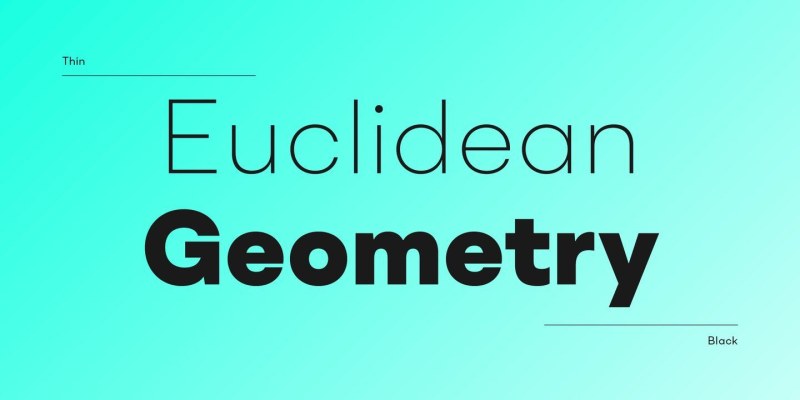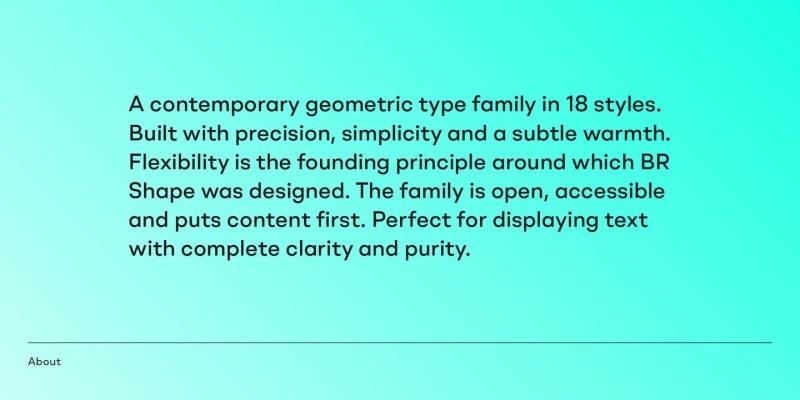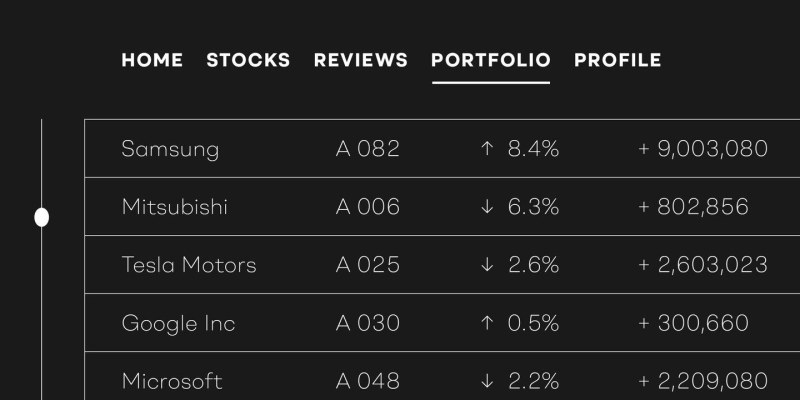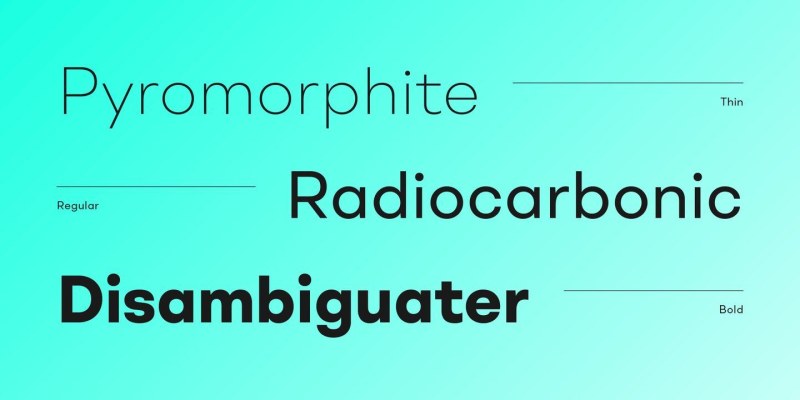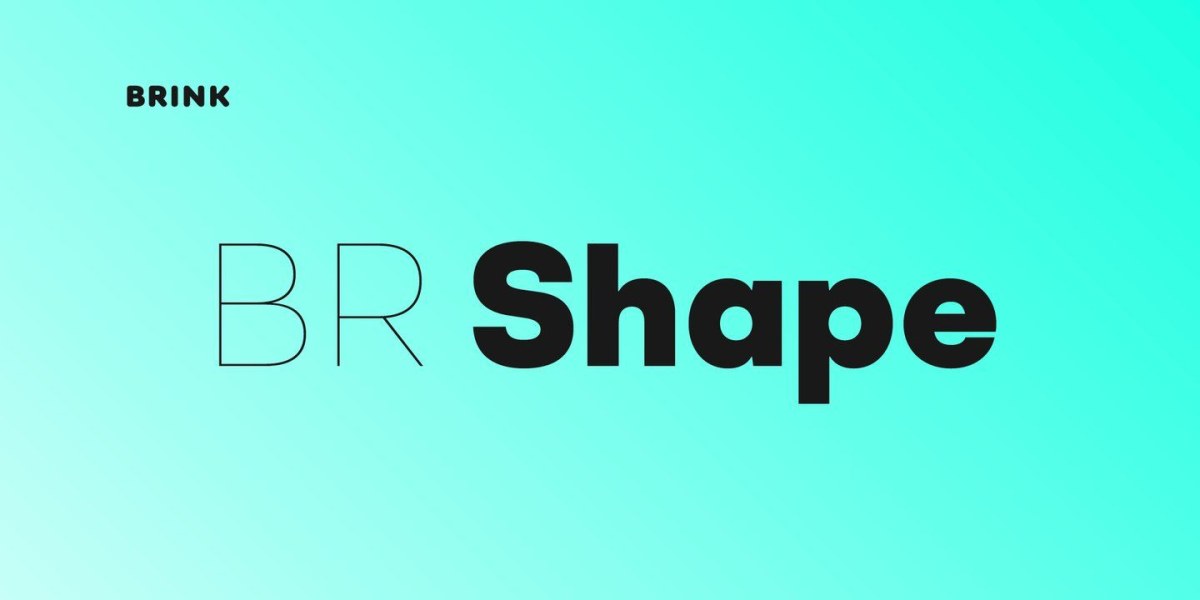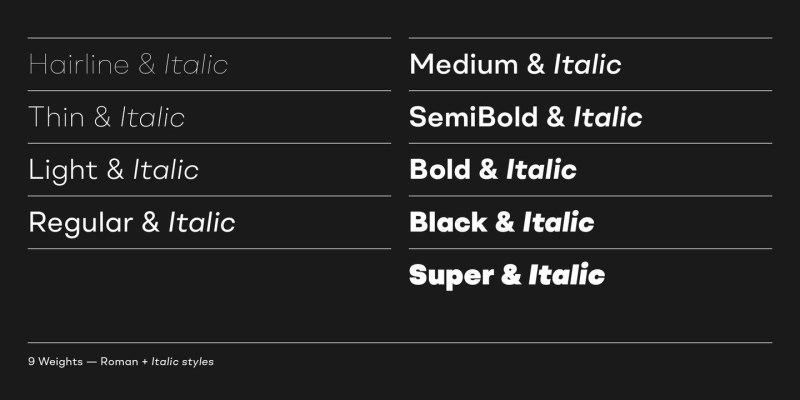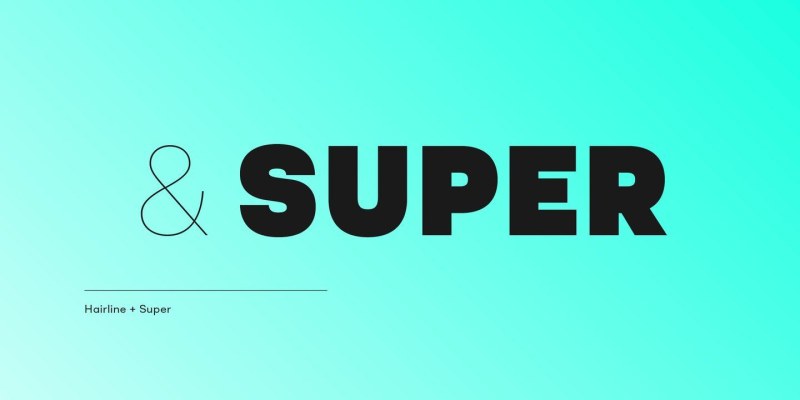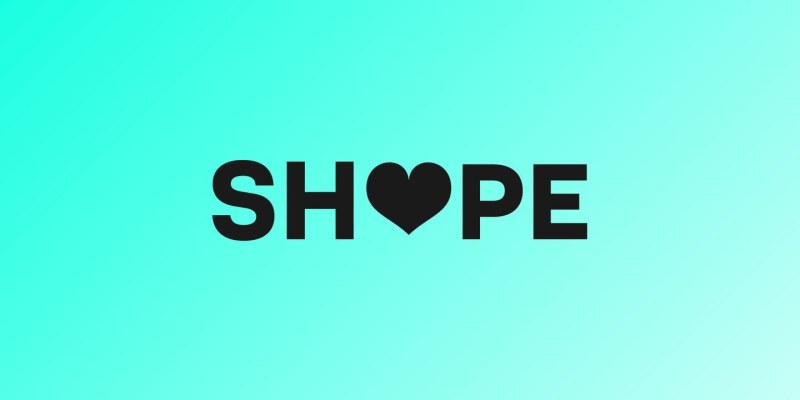
BR Shape Font Family
A contemporary geometric type family in 18 styles. Built with precision, simplicity and a subtle warmth. Flexibility is the founding principle around which BR Shape was…
A contemporary geometric type family in 18 styles. Built with precision, simplicity and a subtle warmth. Flexibility is the founding principle around which BR Shape was designed. The family is open, accessible and puts content first. Perfect for displaying text with complete clarity and purity. BR Shape is available in 18 finely crafted styles, with nine weights ranging from Hairline to Super. The fonts also provide advanced typographic support with OpenType features such as case sensitive forms, icons, stylistic alternates and multiple figure sets. Also containing advanced language support as standard.
Where BR Shape Font Family works best
BR Shape Font Family stays legible at small sizes, which makes it a strong choice for navigation, buttons and dashboards in web design and app interfaces.
Clean sans serifs like BR Shape Font Family are the default language of SaaS, fintech and product branding.
What is BR Shape Font Family good for?
BR Shape Font Family is a Sans Serif Fonts typeface tagged Contemporary, Geometric, Modern, Sans Serif. It works well for headlines, logos, posters, social media graphics and branding projects that need a distinctive sans serif fonts look.